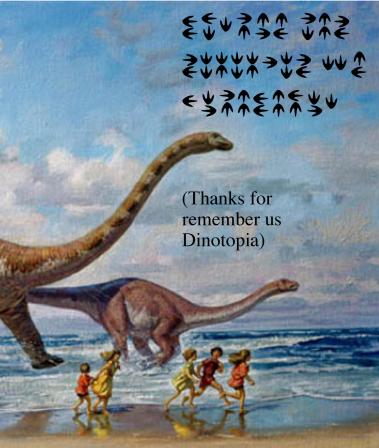
Dinoscript
Dinoscript from Dinotopia books/TV show series. Taken exactly as found in original book. Best size for this font is 32pt... not 12pt. Because I'm too lazy to resize it.